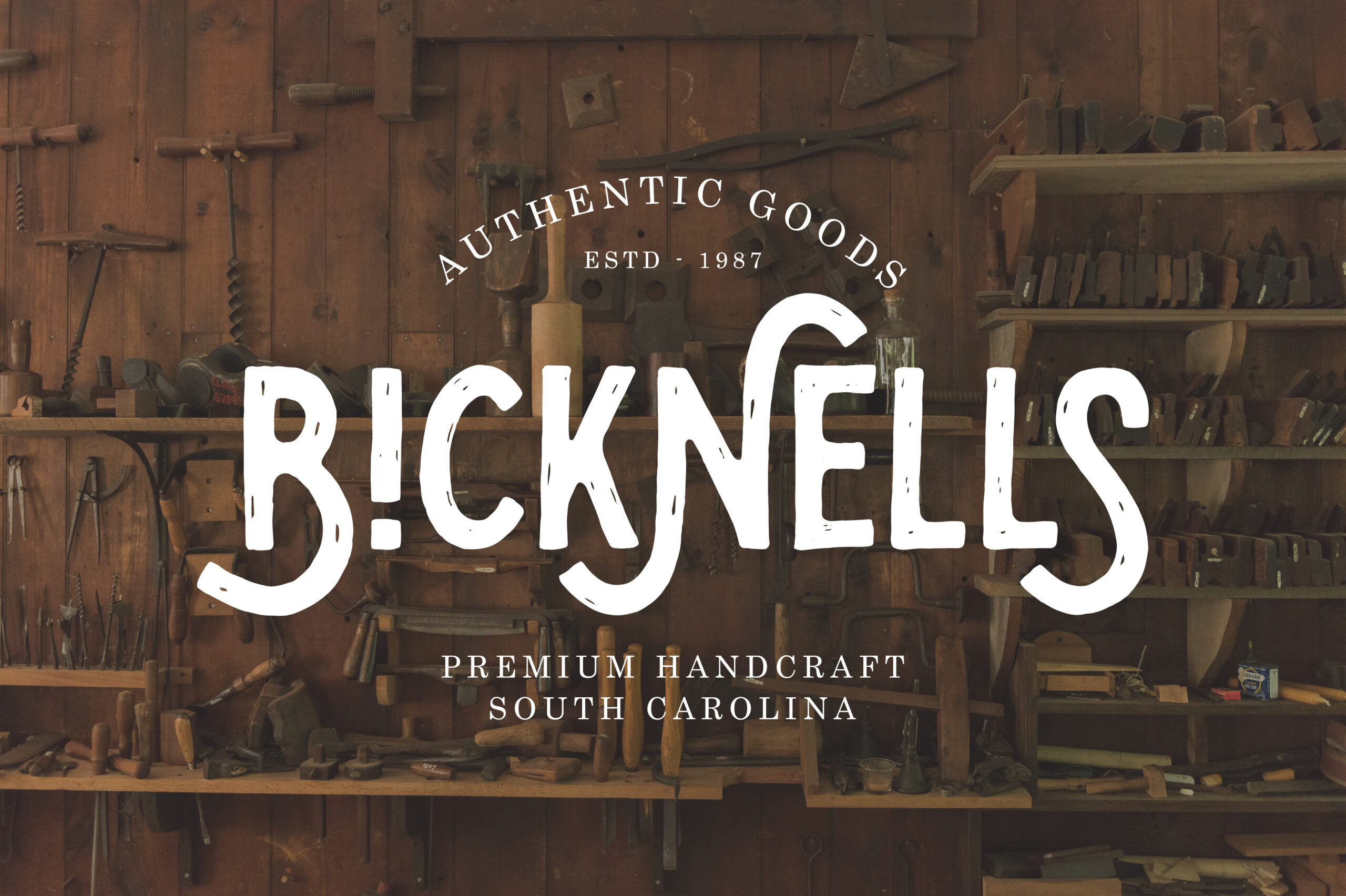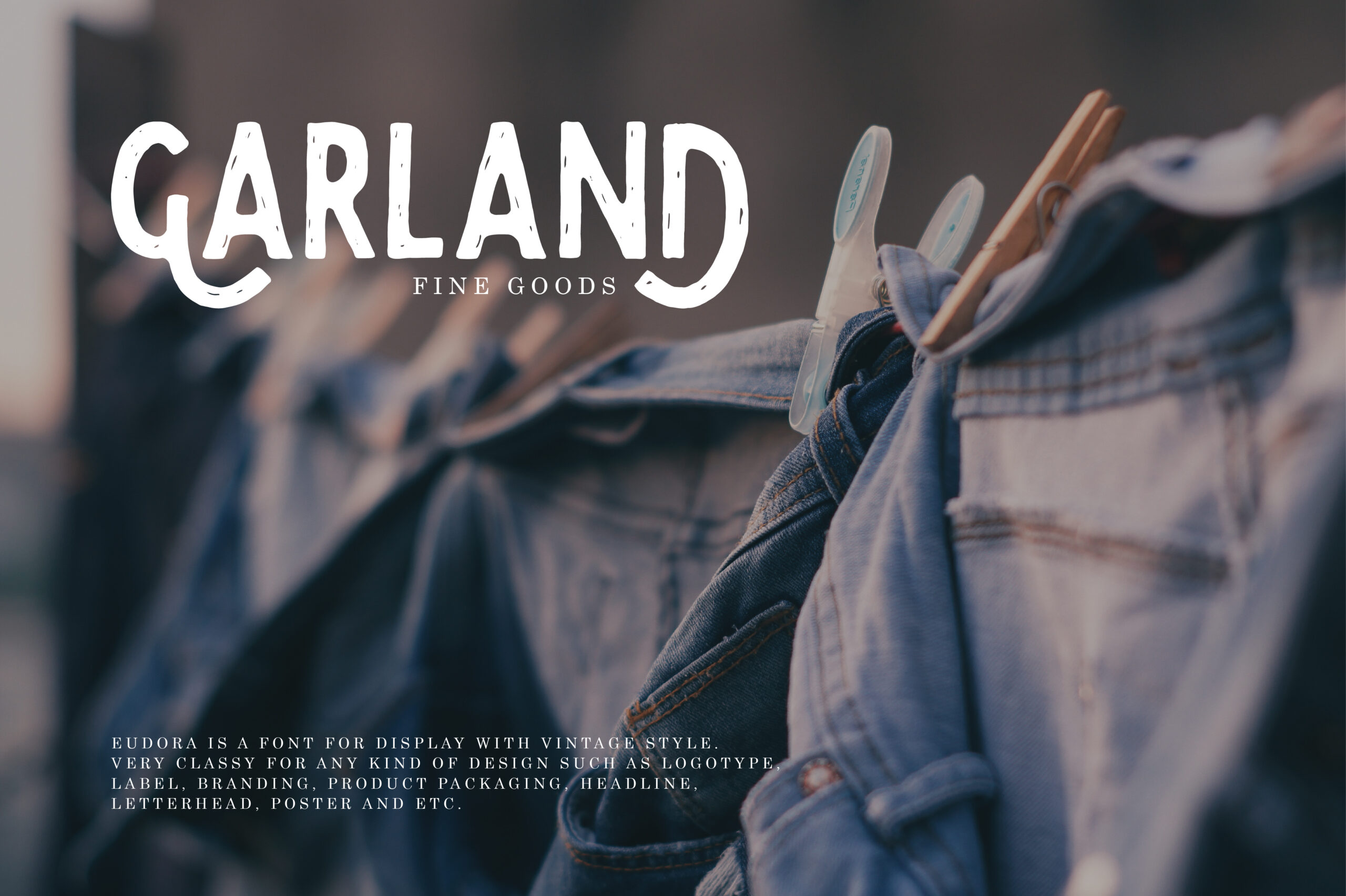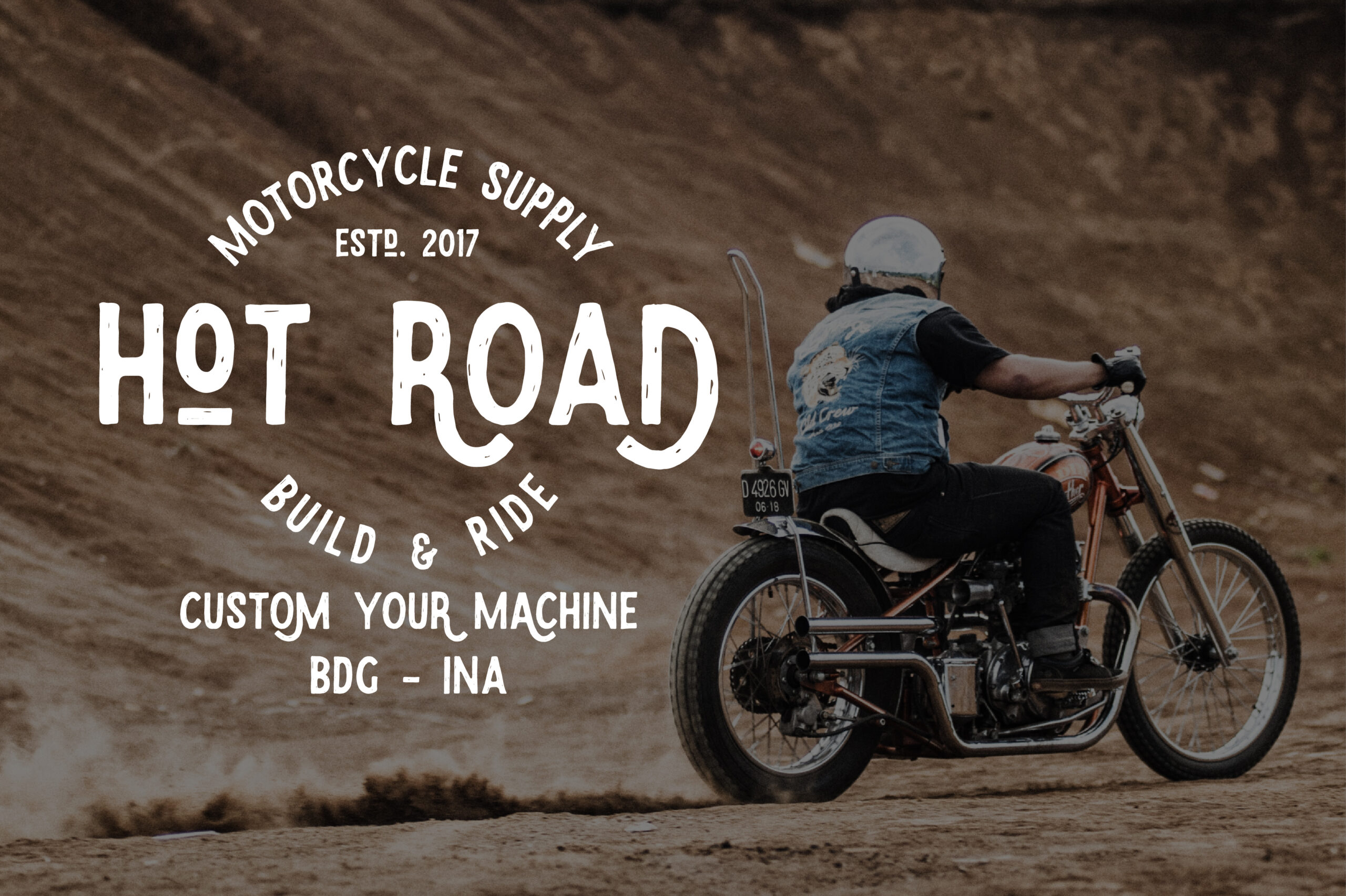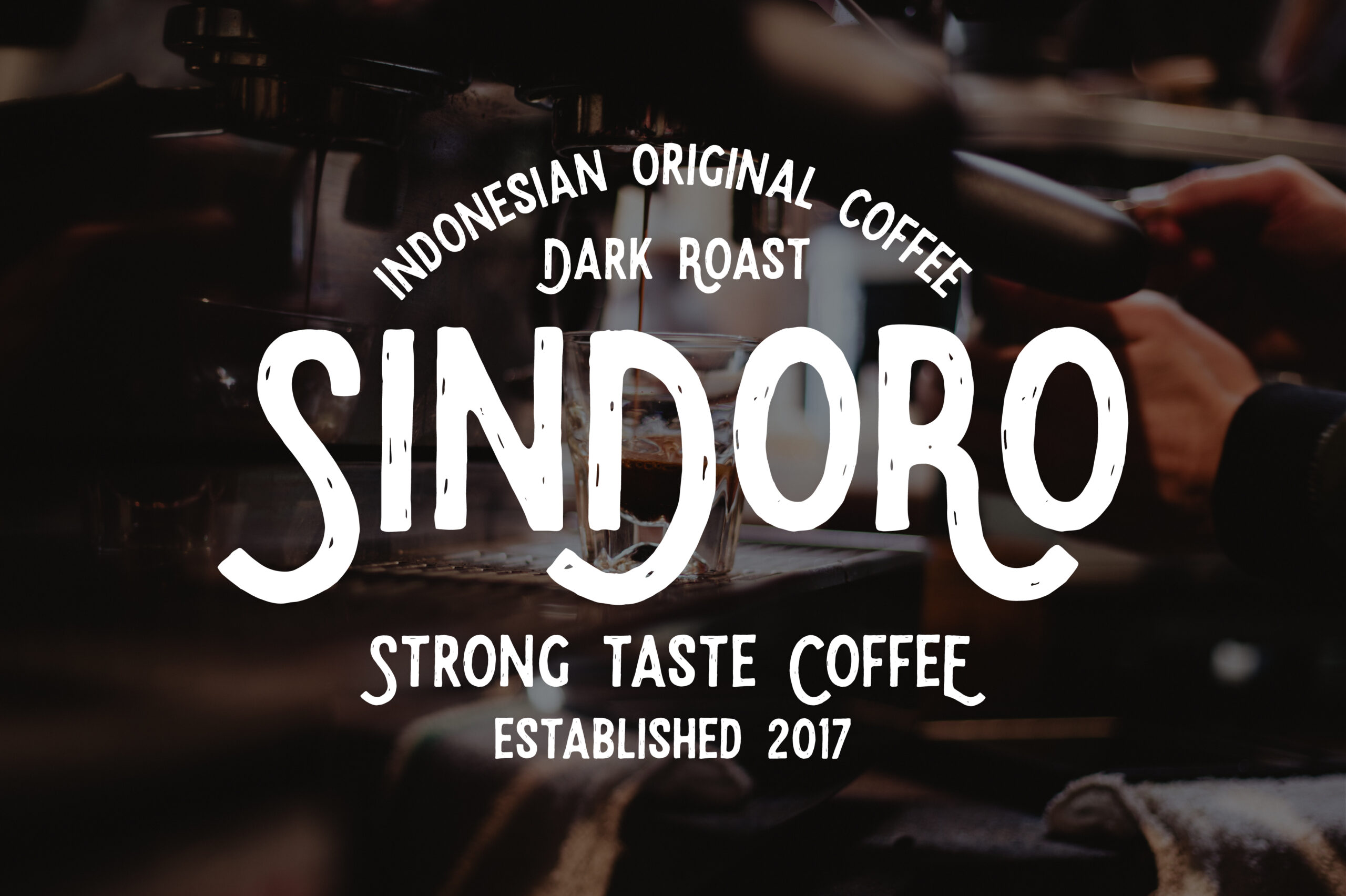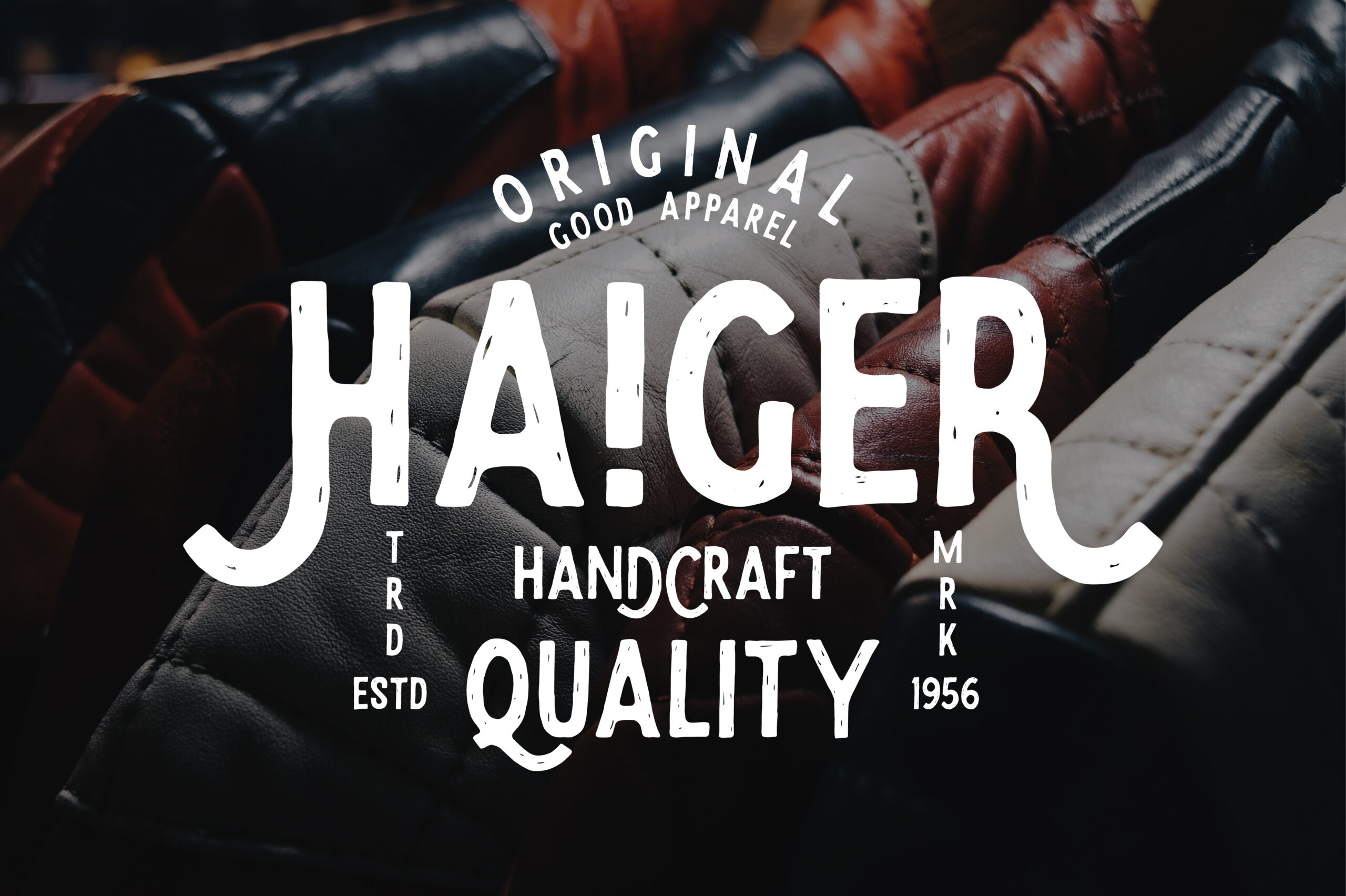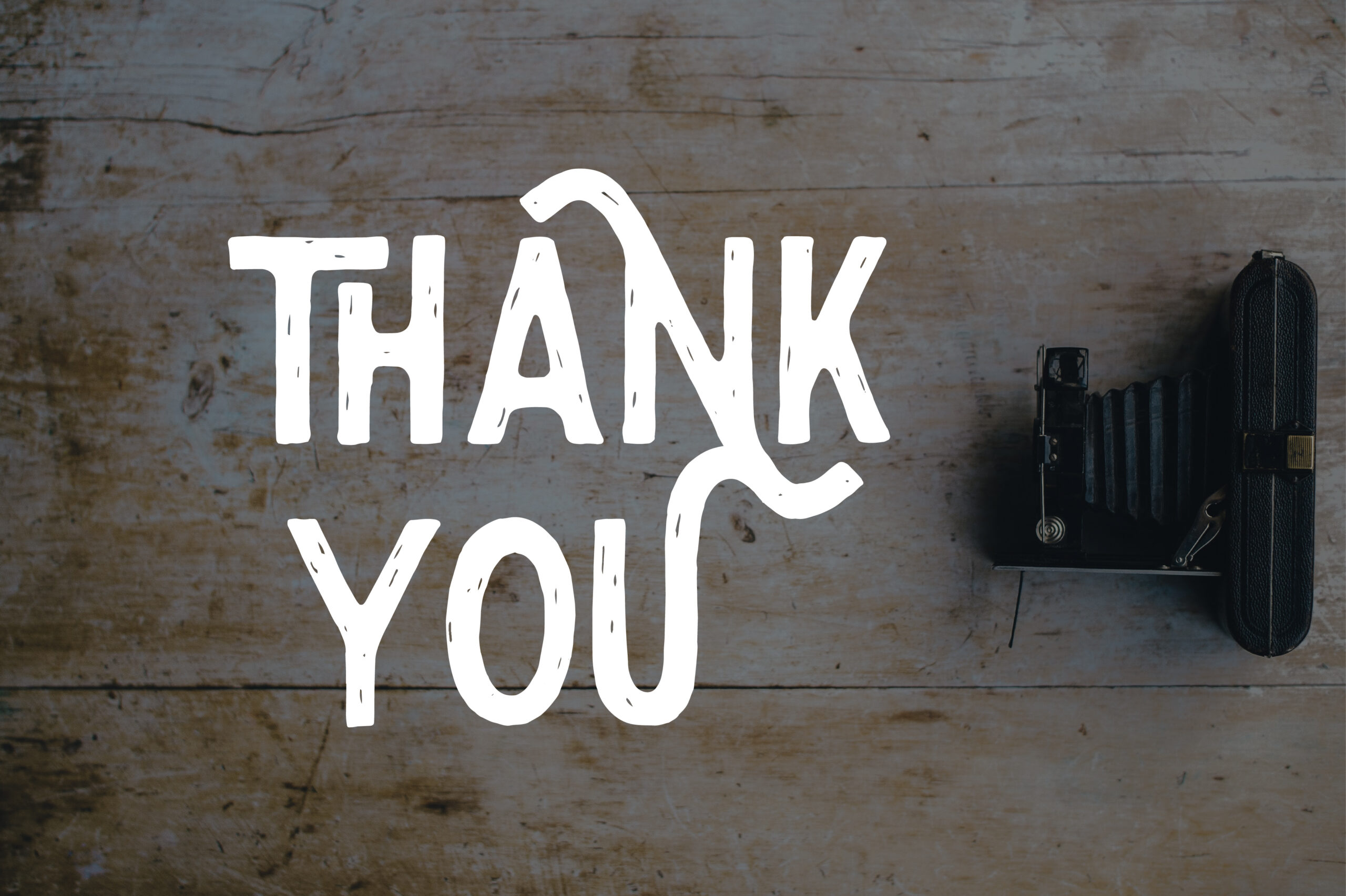
Eudora
Eudora is a handcrafted display font with a rustic and playful vibe, perfect for designs that aim to capture a bold, handmade aesthetic. Its unique stroke irregularities and flowing alternates bring an organic, lively personality to any composition, making it ideal for logos, signage, or vintage-inspired branding.
Whether you’re crafting labels, apparel, packaging, or promotional posters, Eudora delivers a strong visual impact while keeping a friendly and approachable charm. With a mix of quirky details and versatile legibility, it’s a go-to choice for makers, custom shops, and storytellers seeking to evoke authenticity and character in their work.